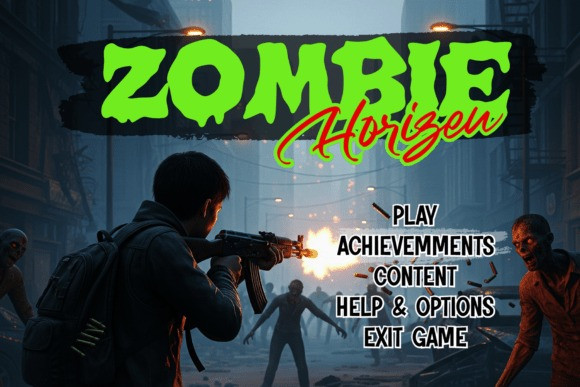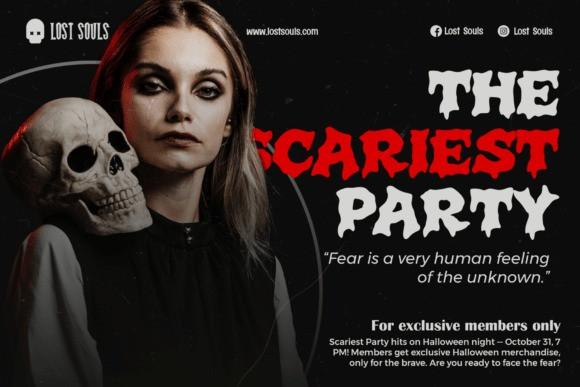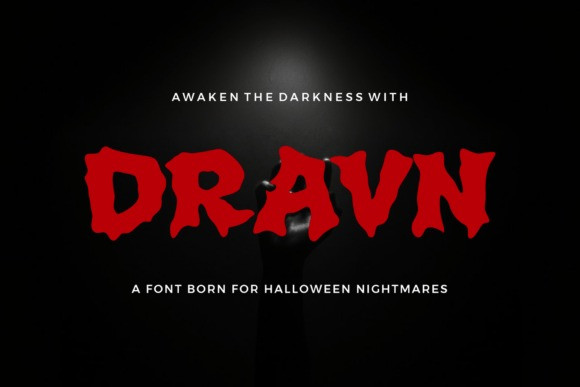
Dravn Display Font – This menacingly bold horror-dedicated typeface embodies darkness, making it an excellent choice for Halloween graphics, spook-tinged invitations, horror cinema artwork, spectral brand imagery, or blood-chilling game headings. DRAVN’s jagged, distorted letterforms emanate a sense of trepidation and mystery, injecting an element of thrill and suspense into every written phrase.
Ideal for both digital renderings and printed creations, this font packs a punch of high-impact terror while giving your designs an authentic, handcrafted feel of uncanny dread. Comprising uppercase and lowercase letters, numerals, and punctuation, DRAVN caters to a myriad of ghastly design needs and supports a host of languages, casting its spell of fear and intrigue worldwide.